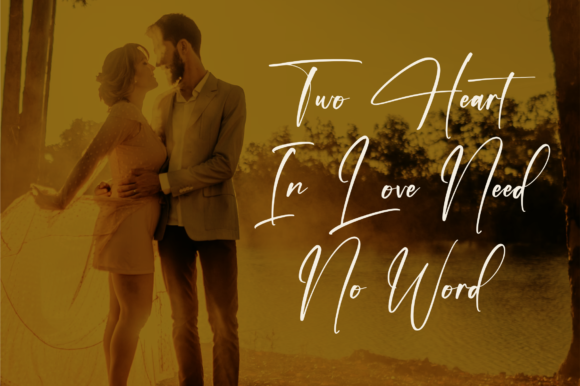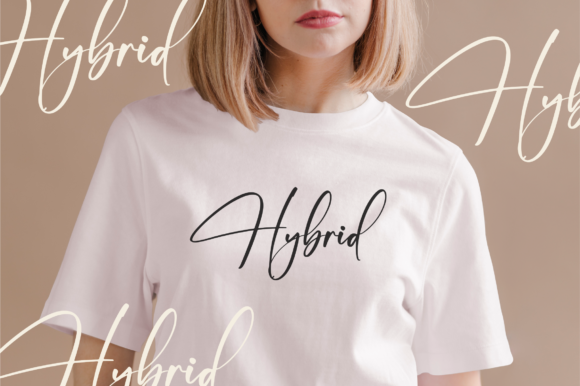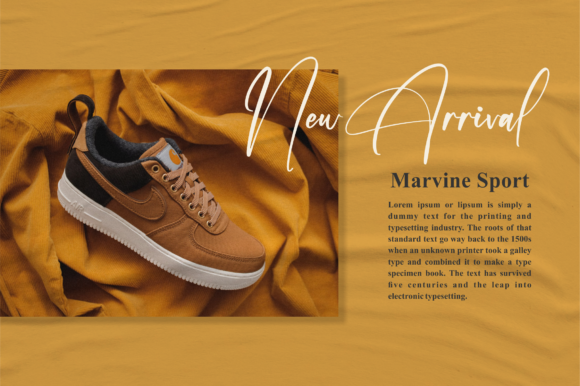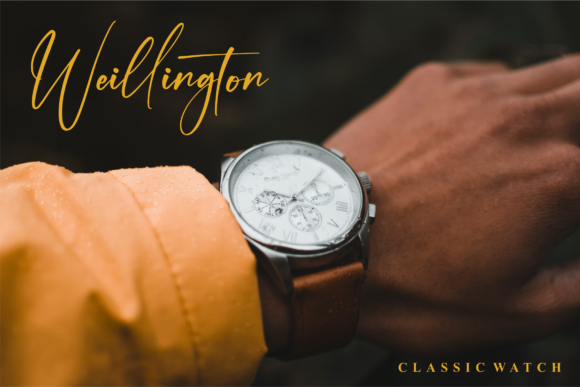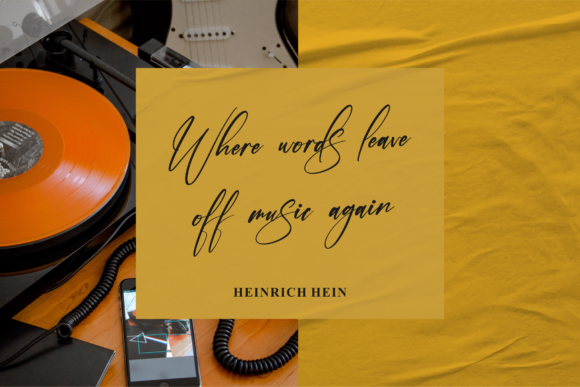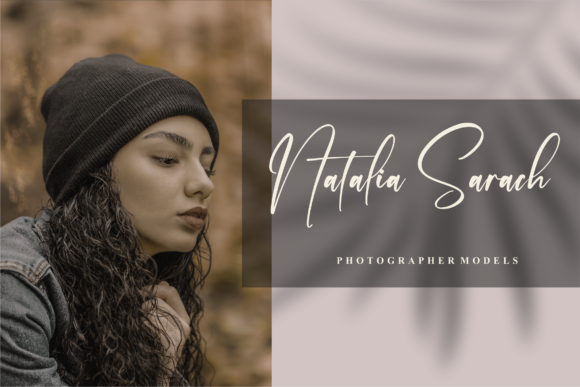
Introduction to Gantlemind Font
Gantlemind is a fashionable and stylish script font.
It is suitable for any projects such as: logos, branding projects, homeware designs, product packaging, mugs, quotes, posters, and all your other lovely creations that need a beautiful script taste .
Key Features of Gantlemind Font
Why Choose Gantlemind Font?
Gantlemind Font offers exceptional quality and versatility, making it a valuable addition to your design toolkit. Whether you’re creating for personal projects or commercial use, Gantlemind Font delivers professional results.